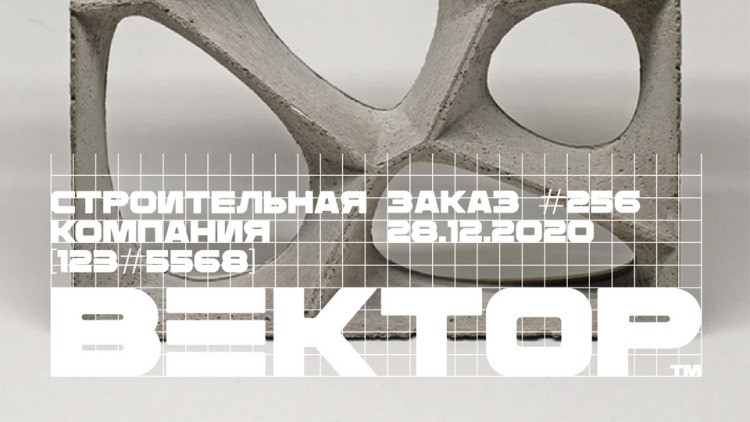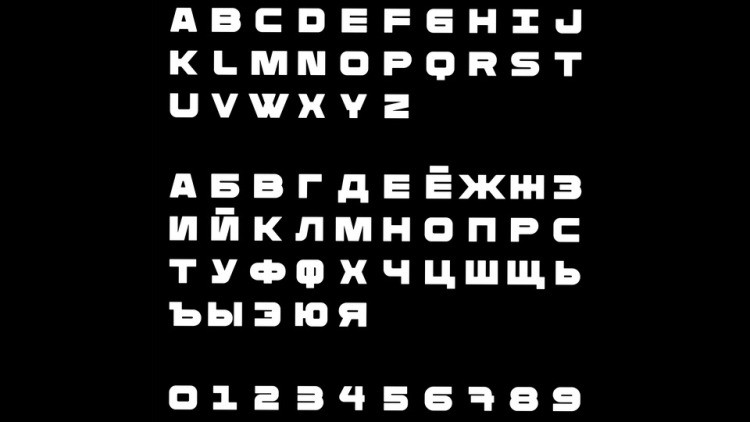
Rimma Sans Font
Rimma Sans Font is a display typeface created, inspired by concrete constructions and monumental architecture. It has solid and bold construction, contrasting with narrow punctuation marks, which is inspired by the relation between metal constructions and concrete foundation.